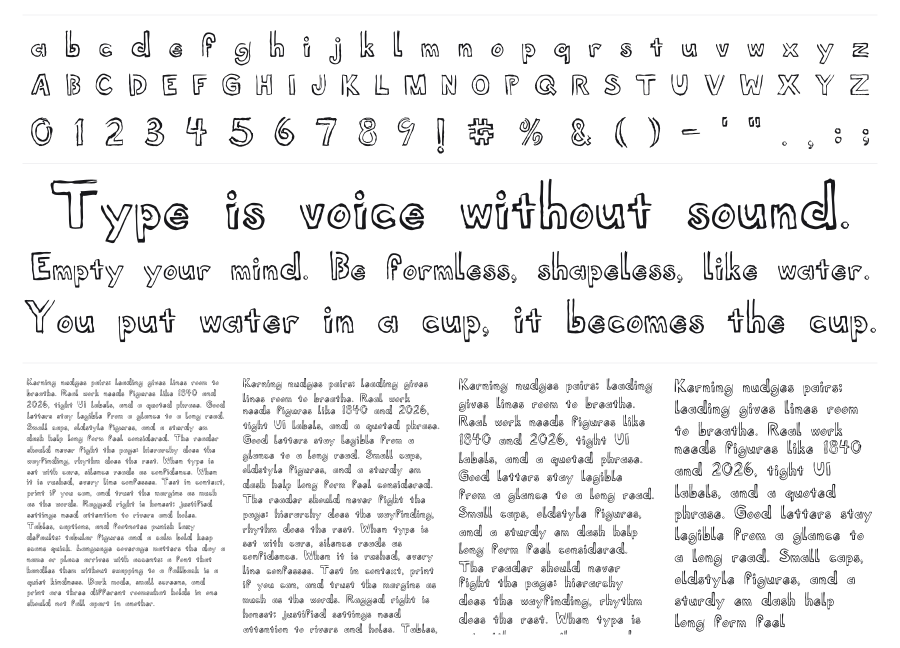
Shell Museum
Shell Museum is a hand-drawn outline face by Nick Cunha with a loose, sketchy quality that gives each letter a slightly wobbly, unfinished charm. The open letterforms feel casual and whimsical, like someone doodled them in a notebook without lifting the pen too many times. Best kept to headlines and decorative uses where its quirky personality can come through at larger sizes.